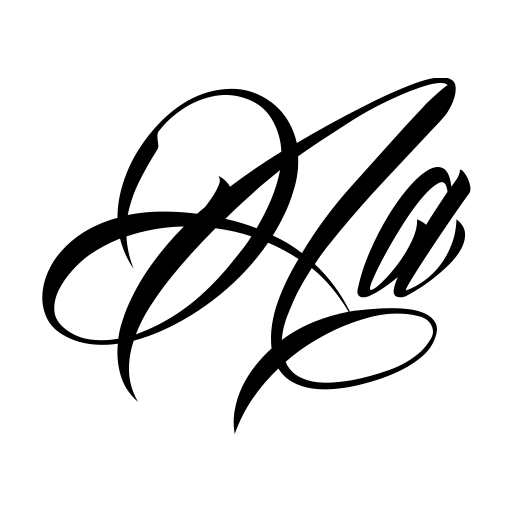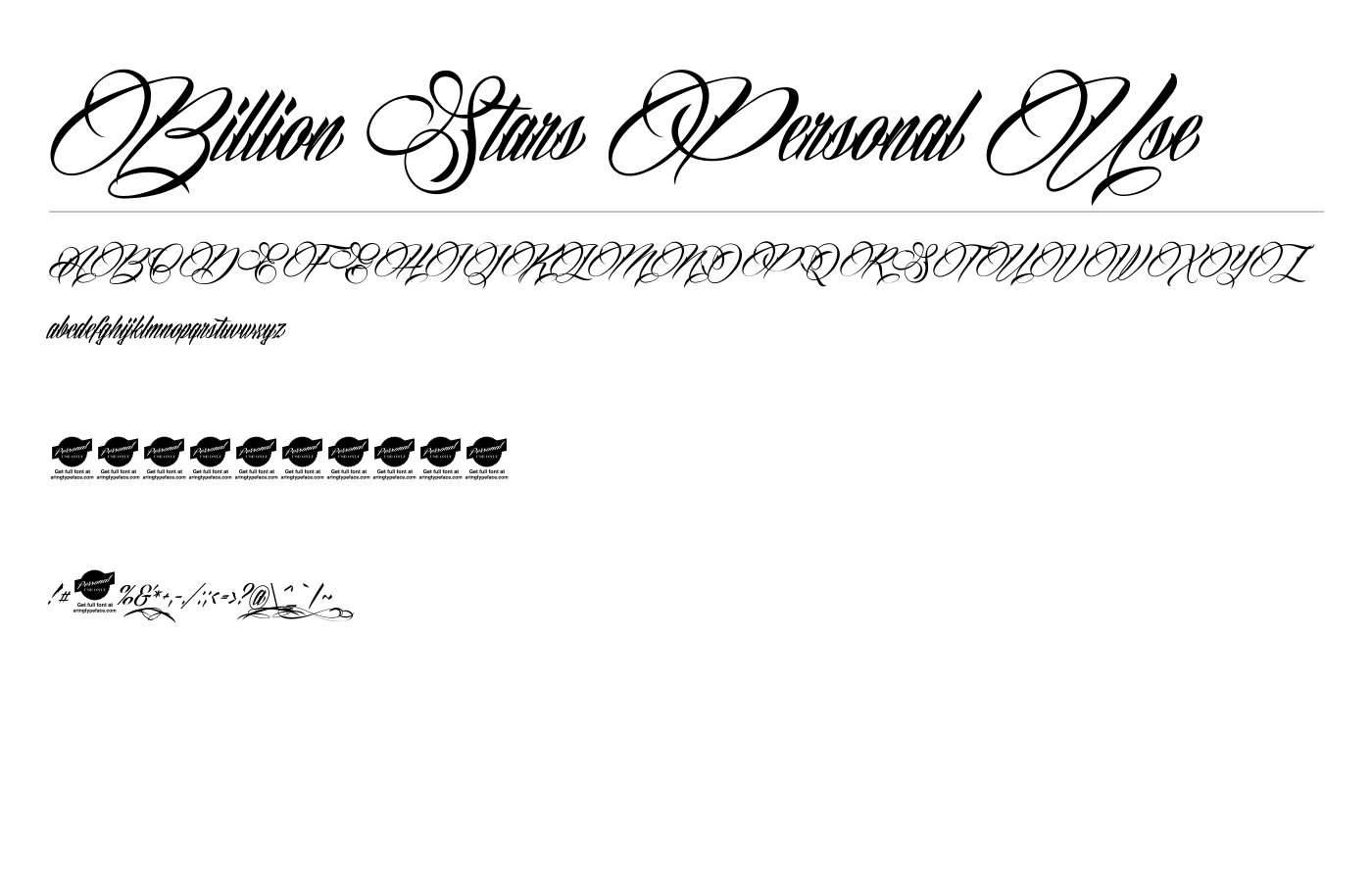
Billion Stars Personal Use is an elegant script font featuring highly decorative, flowing letterforms with dramatic swashes and flourishes that add a sense of luxury and sophistication. Its delicate contrast between thick and thin strokes, combined with ornate uppercase characters, makes it perfect for invitations, branding, and any design needing a refined, classical touch. This font shines best in large display settings where its intricate details can be fully appreciated.
Billion Stars Personal Use Font
About Billion Stars Personal Use Font
| Font family | Billion Stars Personal Use Font |
| Designer | Måns Grebäck |